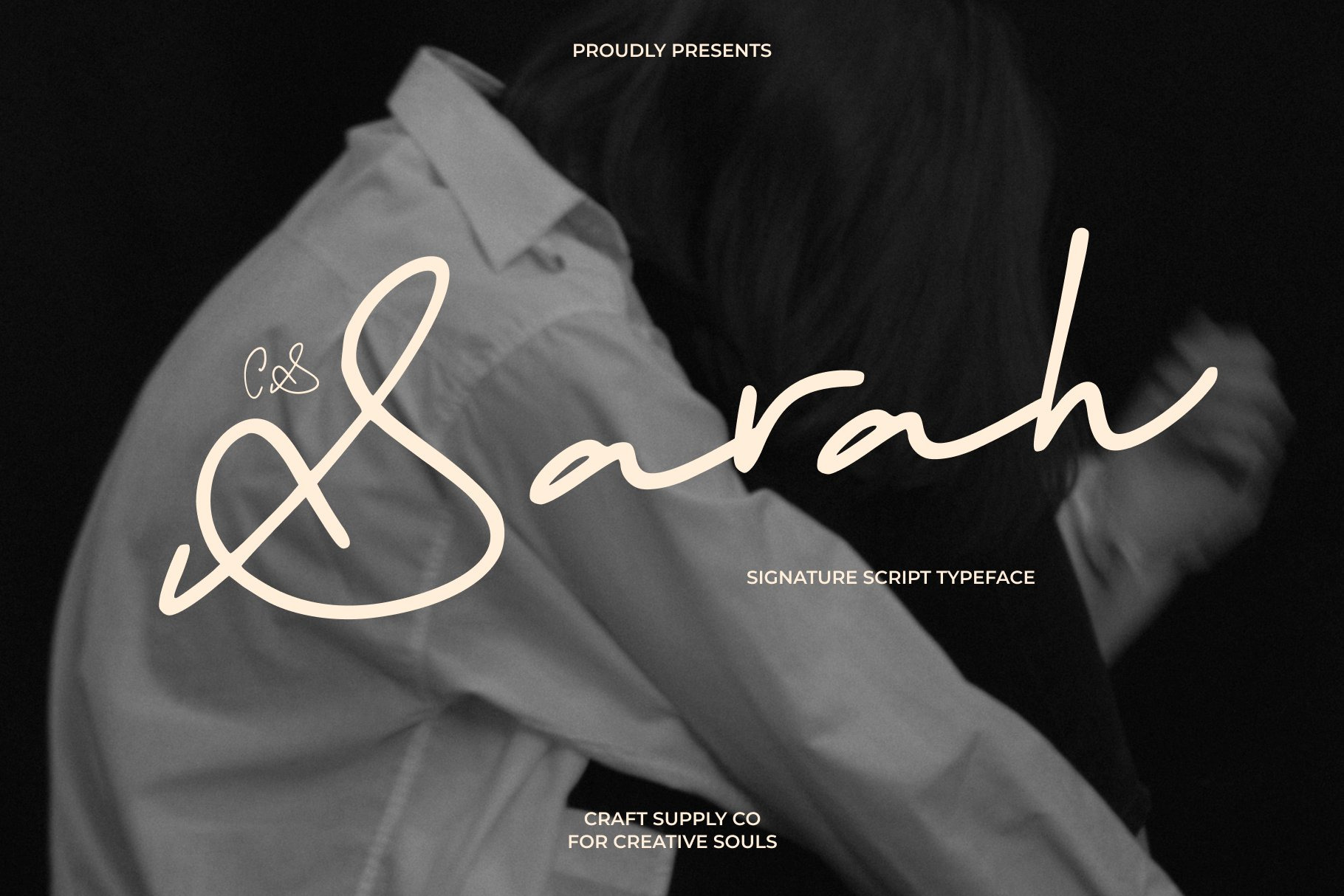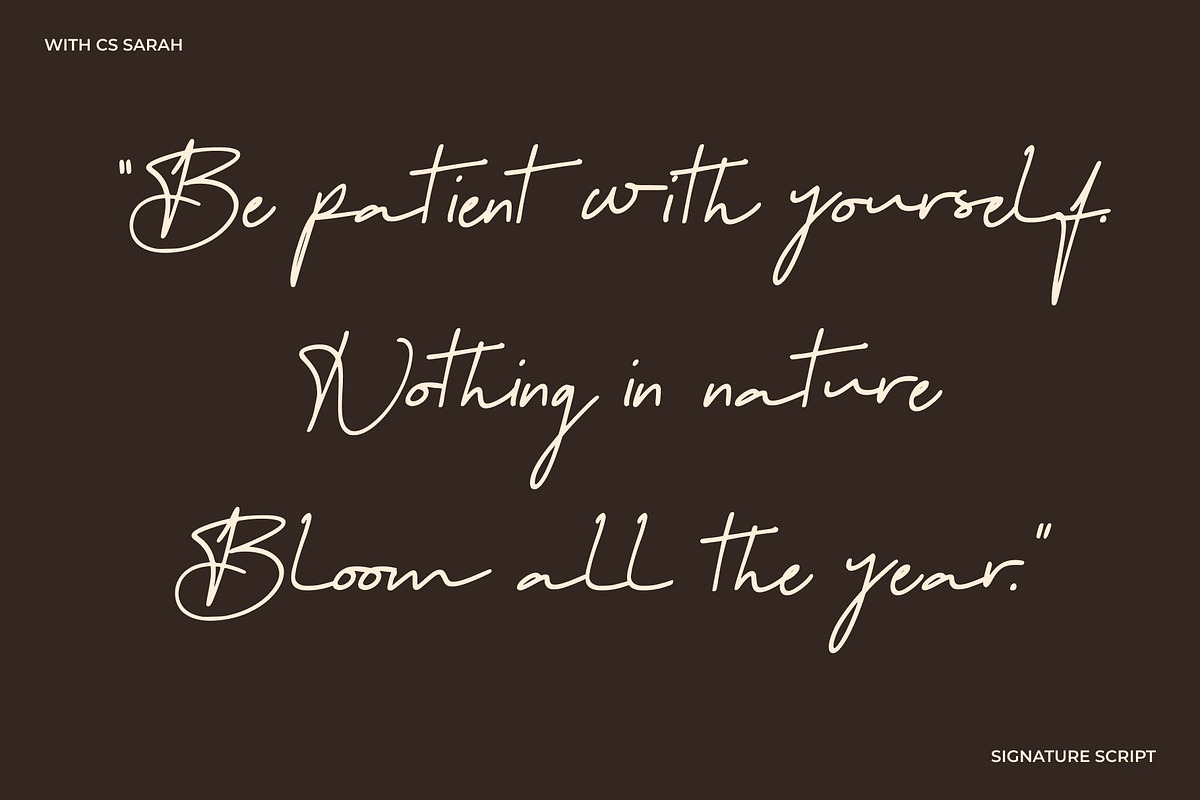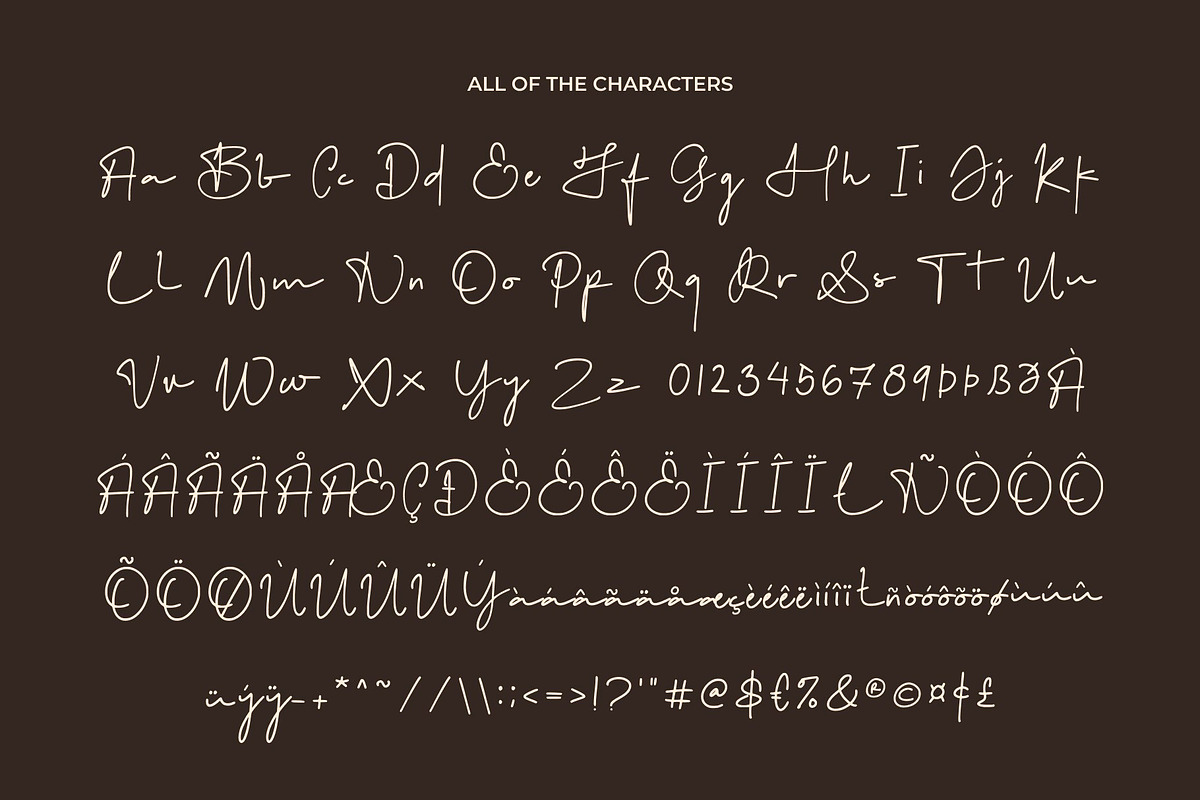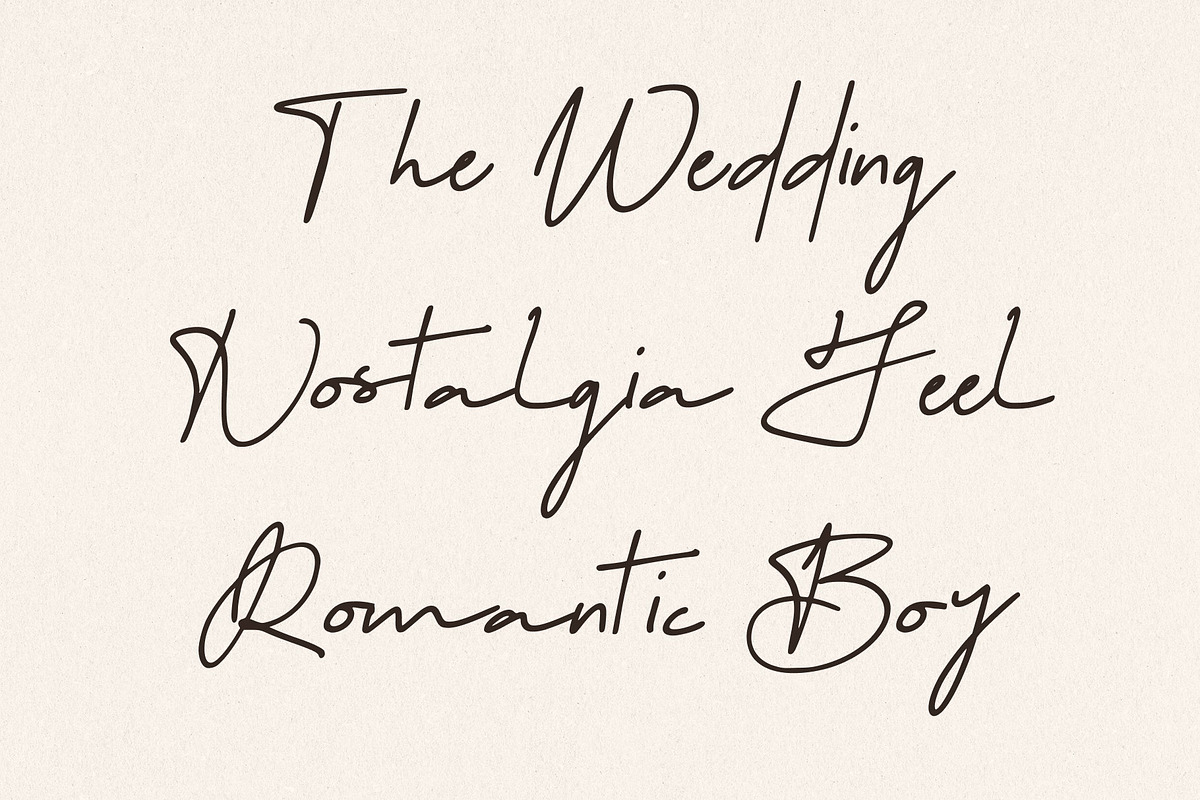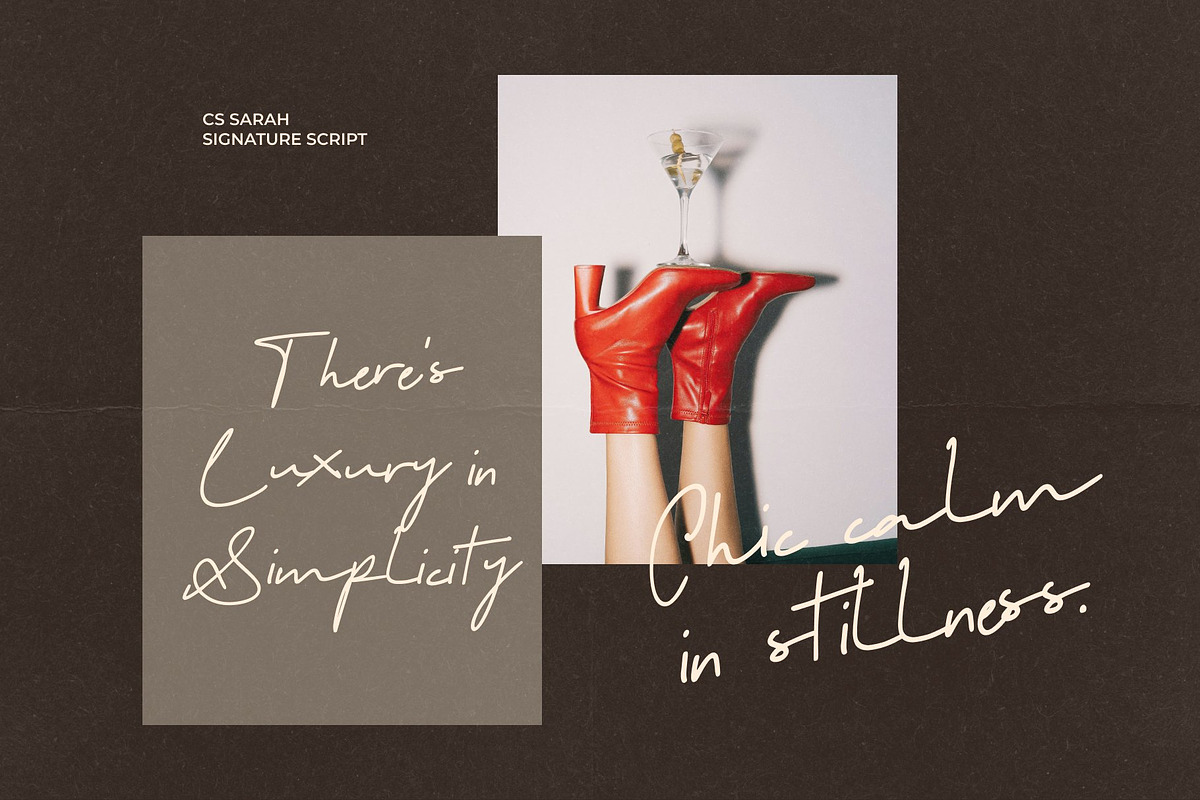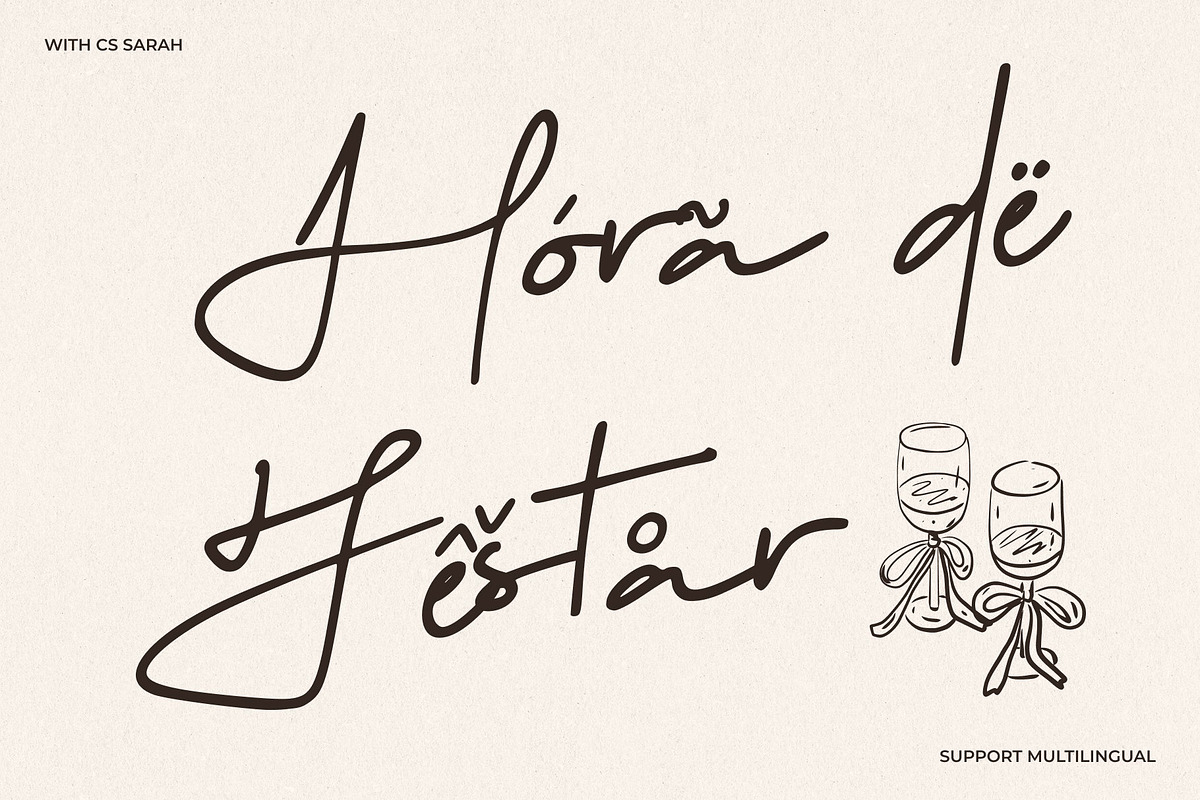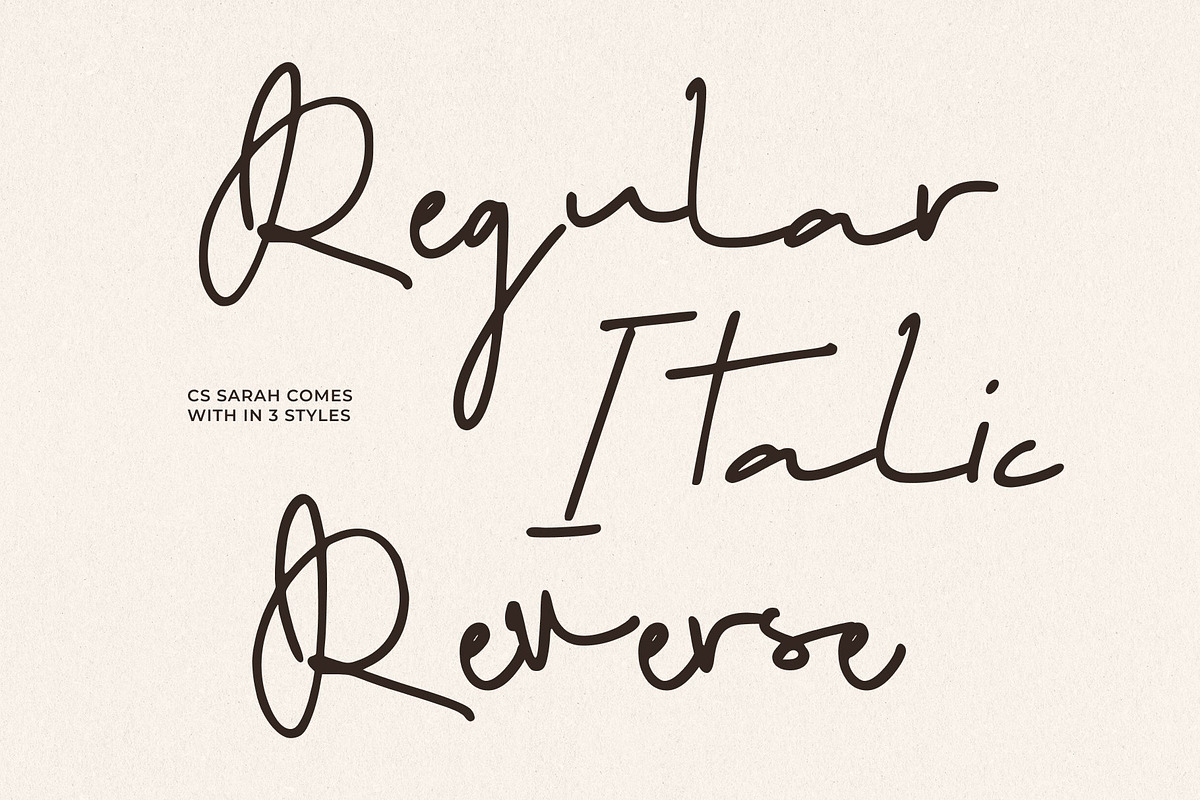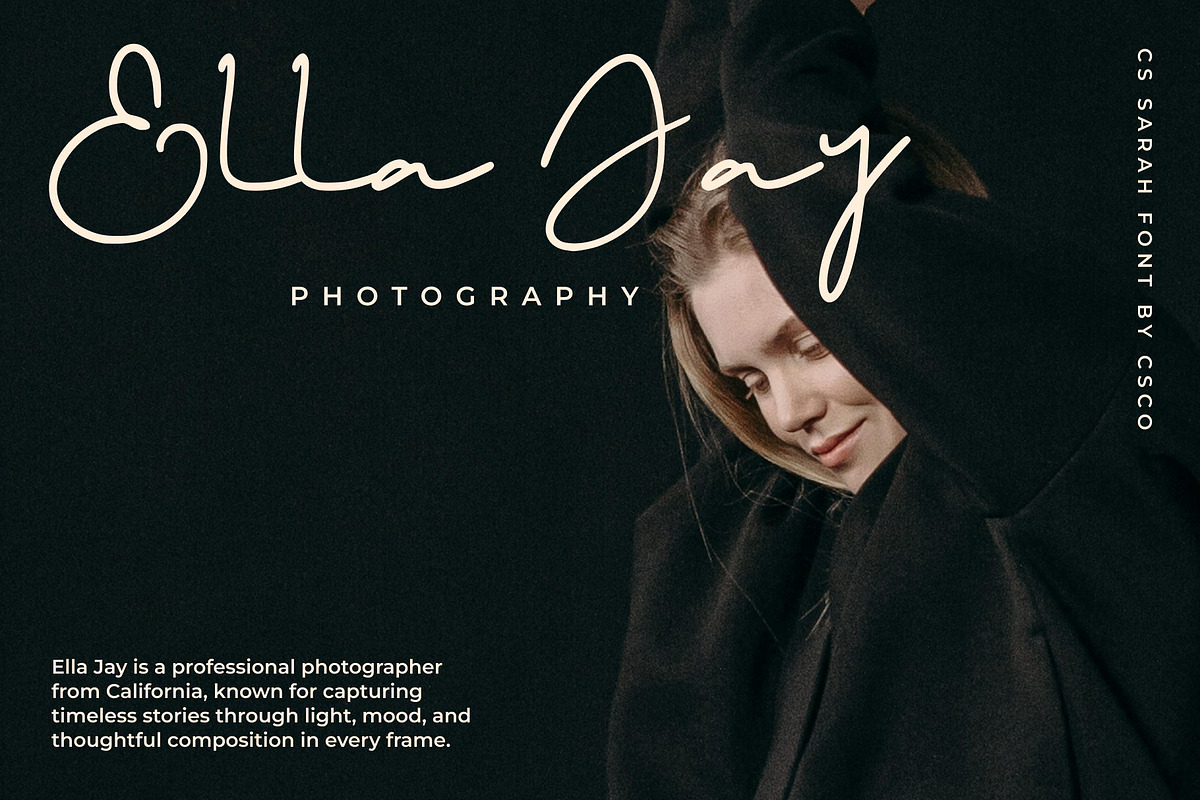
CS Sarah – Handwritten Script Font
CS Sarah – Graceful Handwritten Elegance with Refined Clarity
Handwritten Script Font with Polished Character This is a handwritten script font designed to express grace, refinement, and effortless elegance. Its smooth flow and carefully balanced letterforms create a polished appearance that feels sophisticated yet natural. Inspired by refined handwriting, CS Sarah delivers a timeless script style that enhances designs with beauty and clarity.
Elegant Flow with High Readability The letterforms of this font are crafted to flow smoothly while maintaining excellent readability. Gentle curves, consistent rhythm, and thoughtful spacing allow each word to feel graceful and clear at the same time. This balance makes the font ideal for both display use and refined text applications, ensuring elegance without sacrificing legibility.
Refined Expression for Premium Visuals This font conveys a sense of luxury and professionalism through its clean handwritten form. Its elegant style adds warmth and personality while remaining polished and controlled, making it suitable for high-end design contexts. The font works beautifully as a signature accent or a primary typographic element in sophisticated layouts.
Ideal for Logos, Editorials, and Luxury Packaging Designed for premium applications, this font is ideal for logos, editorial layouts, luxury packaging, branding, and refined promotional materials. Its graceful handwritten style makes it especially suitable for fashion, beauty, lifestyle, and upscale brands. Whether used in a logo mark or elegant editorial design, this font delivers a refined typographic presence that elevates your project with clarity, elegance, and timeless appeal.
- CS Sarah Regular
- CS Sarah Italic
- CS Sarah Reverse Italic